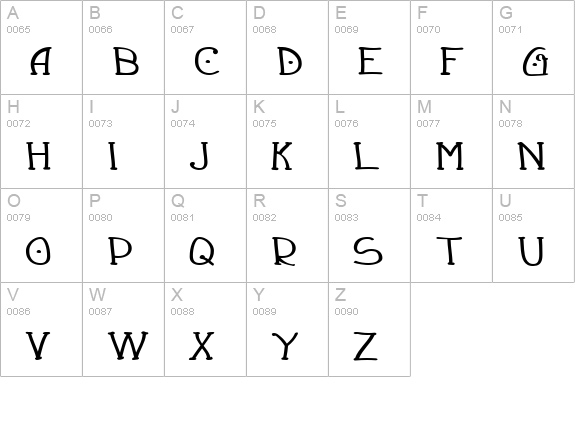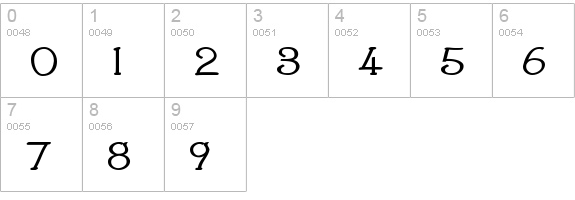
Draughtsman Bold Font Details
Draughtsman Bold is a strong, high-contrast variant in the Draughtsman typeface family \xE2\x80\x94 well suited to headlines, attention-grabbing titles, and strong calls-to-action.
Draughtsman Bold is a modern and versatile font that exudes confidence and sophistication. With its clean lines and bold presence, this typeface is perfect for making a statement in your designs. Whether you are creating a logo, poster, or branding materials, Draughtsman Bold will elevate your project to the next level. This font is available for free download at FontsMarket.com, where you can easily access and utilize its unique charm in your creative endeavors. The sleek and timeless design of Draughtsman Bold makes it a must-have addition to any designer's toolkit. Embrace the power of this font to captivate your audience and leave a lasting impression.